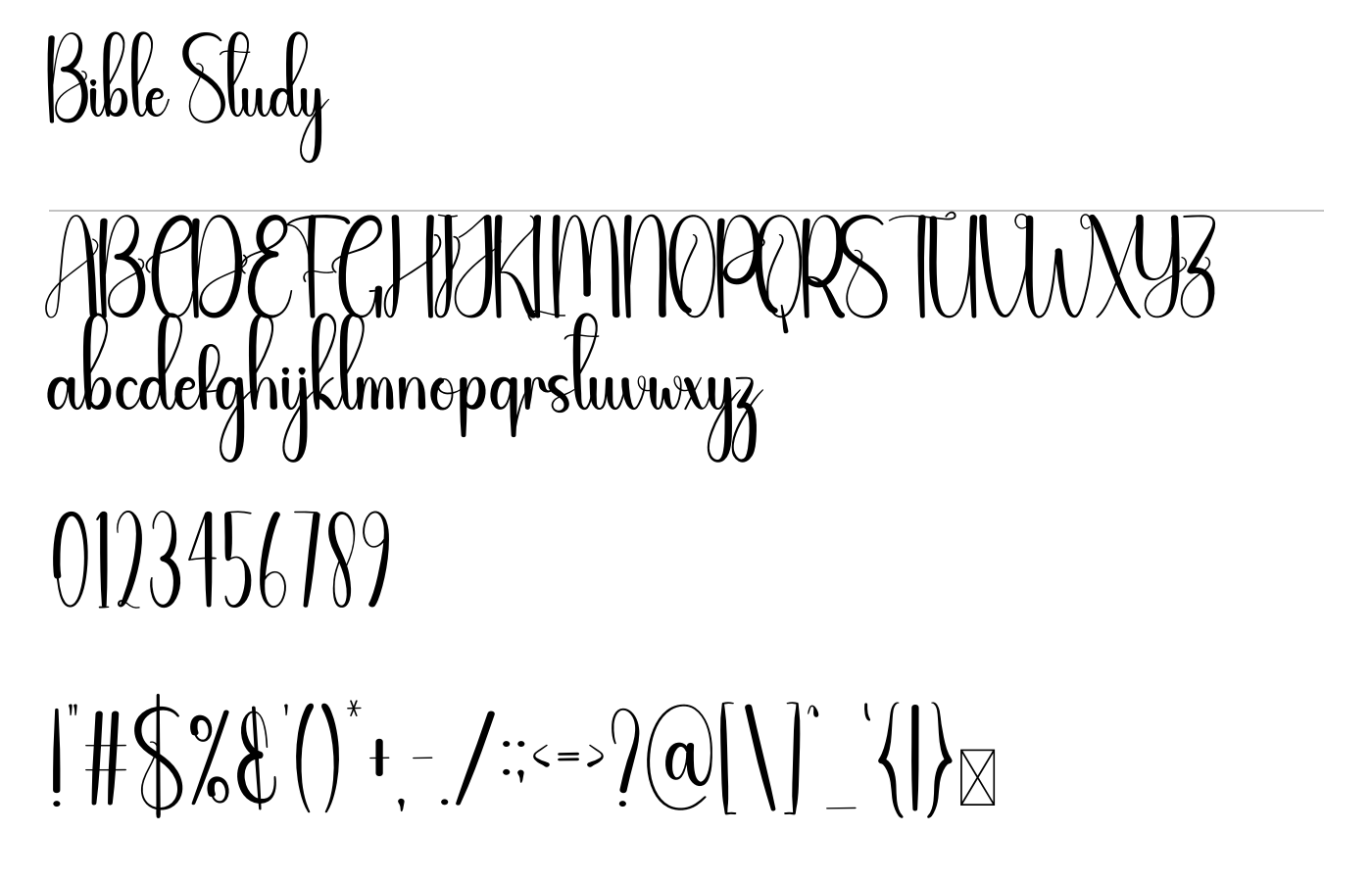
Bible Study Font is a delicate and tall handwritten script with elegant, looping strokes that give it a light and airy feel. Its narrow letterforms and playful, ornamental details make it perfect for inviting, personal designs like quotes, invitations, and branding that seek a warm, approachable atmosphere. This font shines best in creative, expressive settings where a touch of charm and individuality is desired.
Bible Study Font